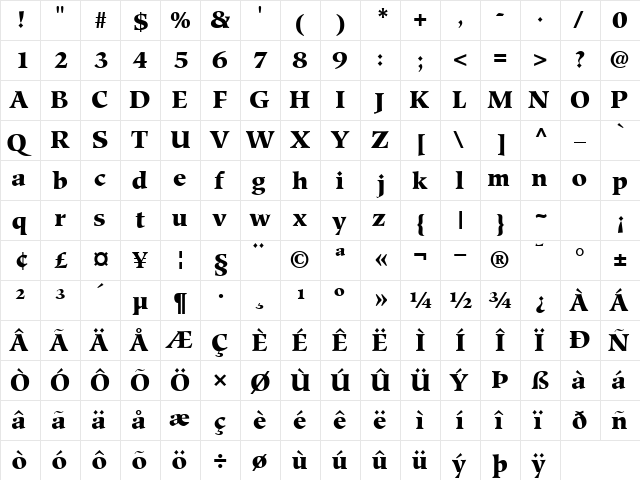
GlossaryBlackSSK Regular
Design Context for GlossaryBlackSSK Typeface
GlossaryBlackSSK offers clean, dependable letterforms without strong stylistic allegiance, making it a practical choice for designers who need flexibility.